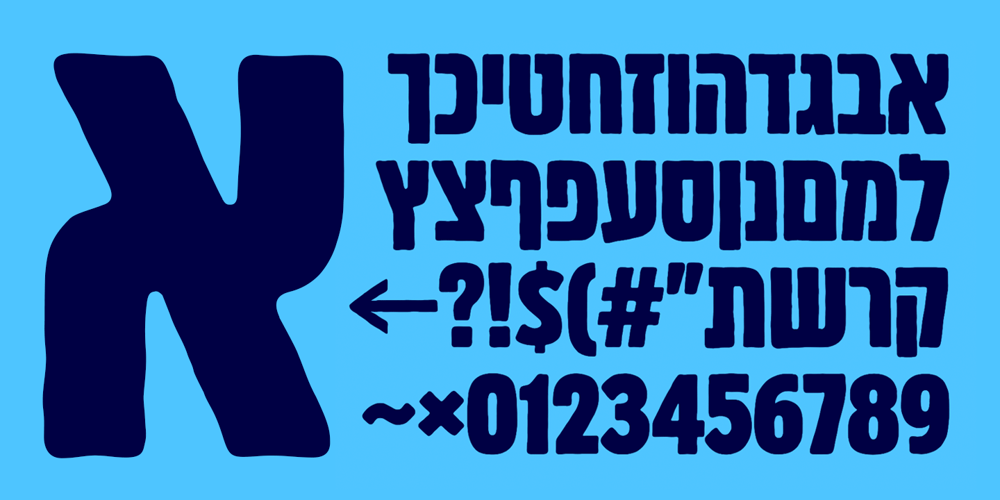
Bamberger Font Family was designed by Avraham Cornfeld and published by Fontimonim. Bamberger contains 6 styles and family package options. A bold, vivacious and rough font that includes six weights for widespread use. Bamberger balances the eccentricity of hand-drawn letters with the stability and readability of a basic and neutral sans font. This combination radiates warmth and boldness appeal. It works great on packaging, viral campaigns, restaurant menus, children’s books and digital applications.